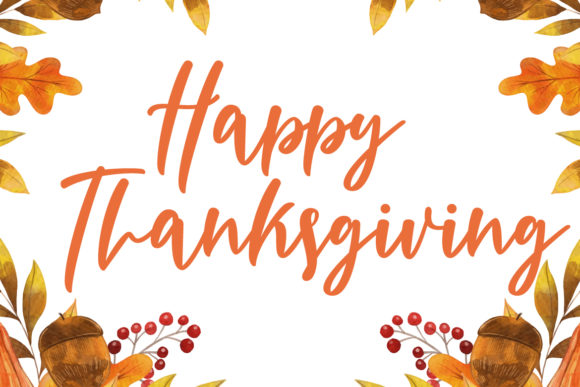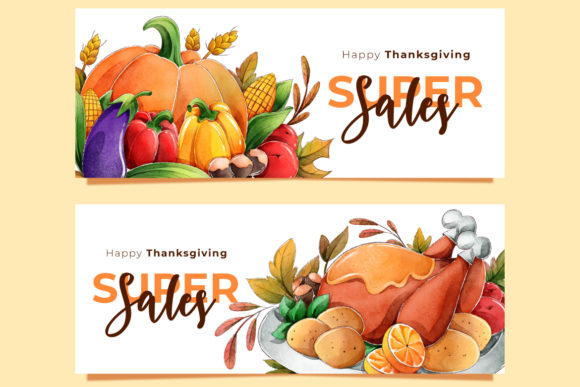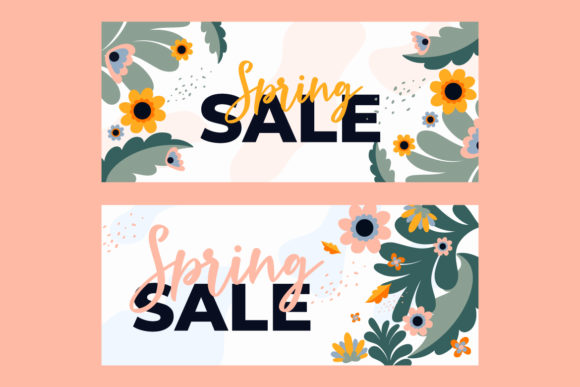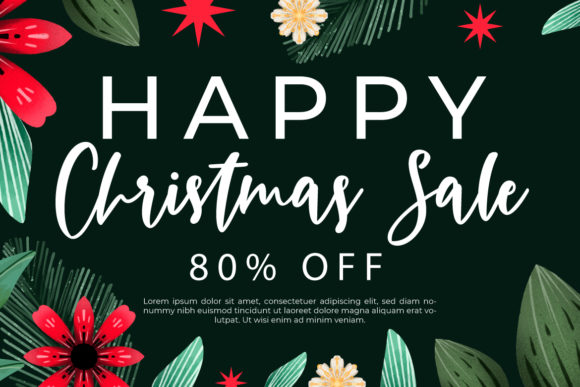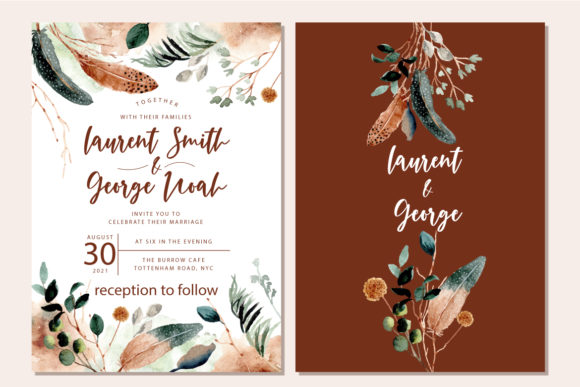
About Mr Right Font
Mr Right is a beautiful script font with bolded letters and rounded corners that create a beautiful authentic feel. This font could be the ‘right’ fit for you’re next project! This font is PUA encoded which means you can access the available glyphs and swashes with ease!